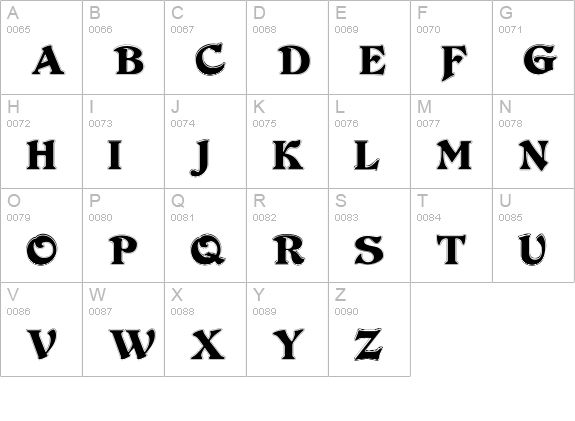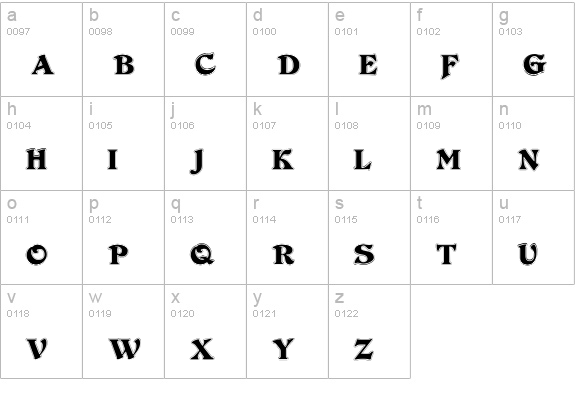
DuvallSmallCapsOutline Font Details
DuvallSmallCapsOutline font is a stylish and modern typeface that exudes elegance and sophistication. Its small caps design adds a unique touch to any project, making it stand out from the crowd. The outline style gives it a contemporary feel, perfect for creating eye-catching headlines or branding materials. Best of all, DuvallSmallCapsOutline font is available for free download at FontsMarket.com. This means you can easily access this exquisite font and use it in your designs without any cost. Whether you're working on a professional project or a personal creative endeavor, DuvallSmallCapsOutline font will elevate your work to the next level. Don't miss out on this fantastic opportunity to enhance your typography collection with this exceptional font that combines style and versatility. Download it now and start creating stunning designs today!